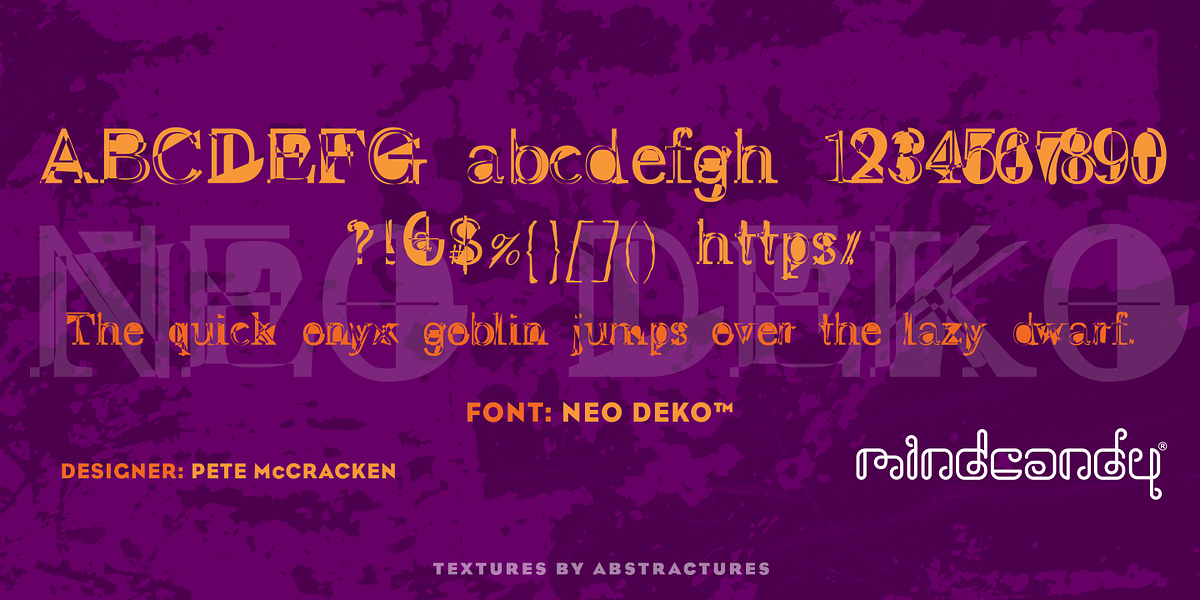
NeoDeko™
This novelty dingbat font features designs of crashed vehicles. It is likely intended for use in illustrations, comics, or graphic design projects where a humorous or quirky touch is desired.